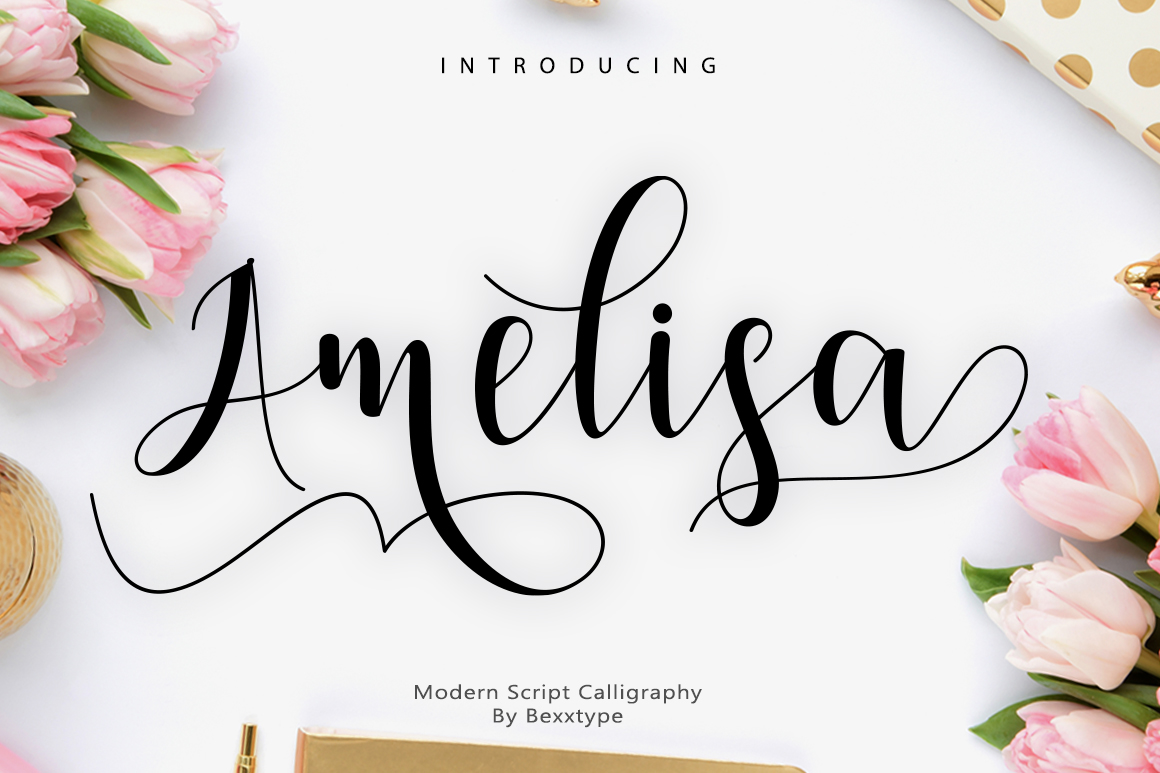
Discover the Charm of Amelisa Script Font
As a designer, I’ve had my fair share of frustrating moments while working on a project. One of those moments was when I was tasked with creating a whimsical wedding invitation. I had spent hours browsing through font libraries, but nothing seemed quite right. That was until I stumbled upon Amelisa Script Font. It was love at first sight! 💕
Amelisa is a beautiful and fresh font, perfectly in time for Spring! This handmade calligraphy font is a great way to give some naturalness and charm to your digital designs, and looks phenomenal on print collateral and assets.
• 💫 Unique and elegant handwritten feel
• 🎨 Beautifully crafted with attention to detail
• 🌸 Perfect for Spring and Summer-themed designs
• ⚠️ Limited character set, may not support all languages
• 🤔 Some users may find the font too delicate for certain design applications
The Story Behind Amelisa Script Font
Amelisa Script Font was designed with love and care by a talented font designer. The goal was to create a font that captures the essence of handmade calligraphy, with a fresh and modern twist. The designer drew inspiration from nature, art, and everyday life to craft a font that’s both elegant and approachable.
Font Name Amelisa Script Font
Author Bexx Type
Q: What is the best way to use Amelisa Script Font?
A: Amelisa Script Font is versatile and can be used for a variety of design applications, such as invitations, branding, and digital graphics. Experiment with different font sizes, colors, and styles to find the perfect look for your design.
Q: Is Amelisa Script Font suitable for body text?
A: While Amelisa is highly legible, it’s recommended to use it for headlines or titles rather than body text. Its delicate feel may not be suitable for longer blocks of text.